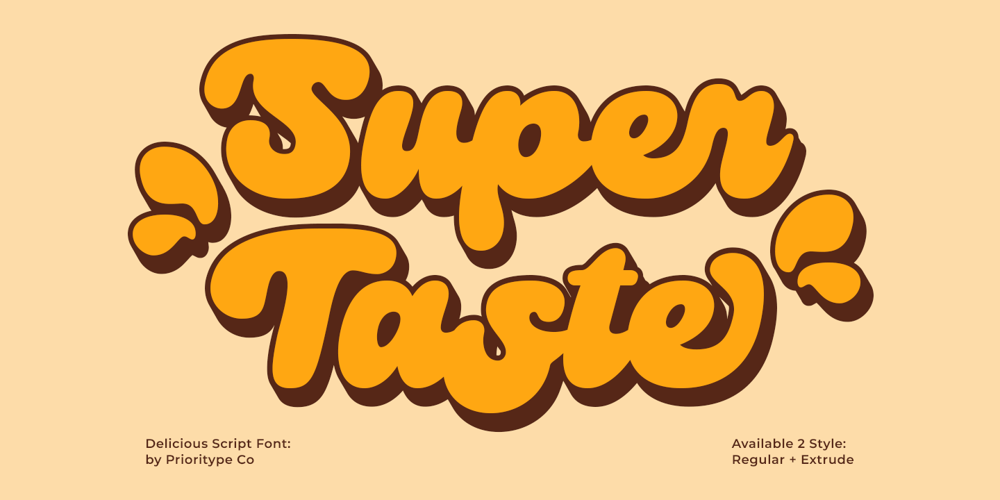
Super Taste Font Family was designed by Prio Nurokhim Aji and published by Prioritype. Super Taste contains 2 styles and family package options. Super Taste – Bold Script FontSuper Taste is a bold script font that blends modern flair with a retro touch. Featuring playful yet structured characters, Super Taste is perfect for a wide range of design needs, from logos and branding to posters and promotional materials. Available in two styles—Regular and Extrude—this font offers versatility in creating eye-catching designs. Ideal for projects aiming to evoke a vintage yet fresh vibe, Super Taste adds a unique flavor to every creative work.Features: Uppercase, Lowercase, Numeral, Punctuation, Multilingual, Ligatures & Alternates.Multilingual contained: Afrikaans, Albanian, Asu, Basque, Bemba, Bena, Breton, Catalan, Chiga, Cornish, Danish, Dutch, English, Estonian, Filipino, Finnish, French, Friulian, Galician, German, Gusii, Indonesian, Irish, Italian, Kabuverdianu, Kalenjin, Kinyarwanda, Luo, Luxembourgish, Luyia, Machame, Makhuwa-Meetto, Makonde, Malagasy, Manx, Morisyen, North Ndebele, Norwegian Bokmål, Norwegian Nynorsk, Nyankole, Oromo, Portuguese, Quechua, Romansh, Rombo, Rundi, Rwa, Samburu, Sango, Sangu, Scottish Gaelic, Sena, Shambala, Shona, Soga, Somali, Spanish, Swahili, Swedish, Swiss German, Taita, Teso, Uzbek (Latin), Volapük, Vunjo, Zulu.For any questions please contact me :)Thanks!